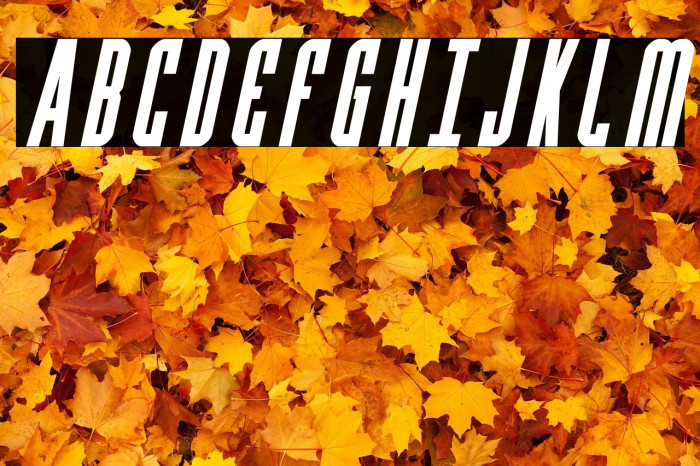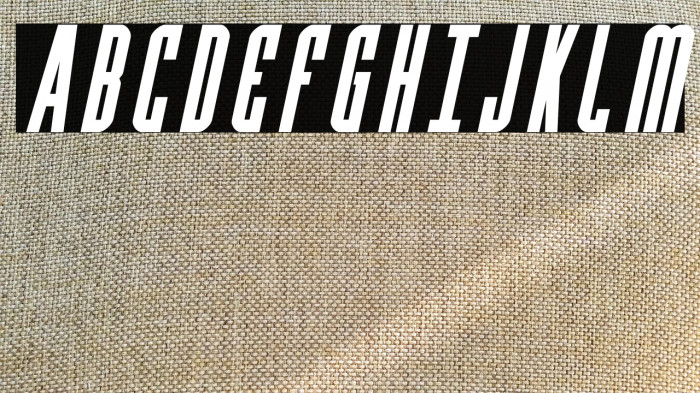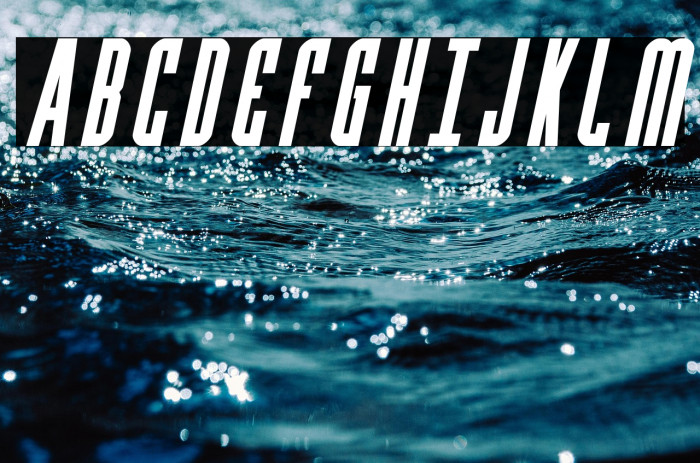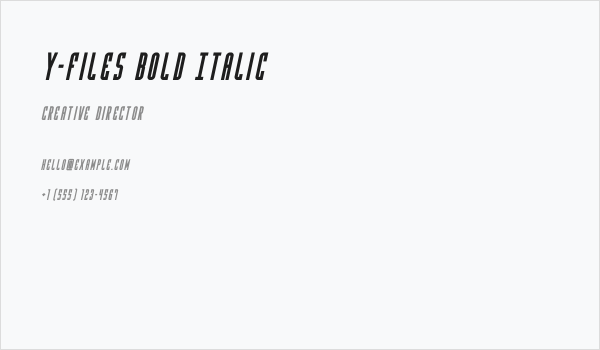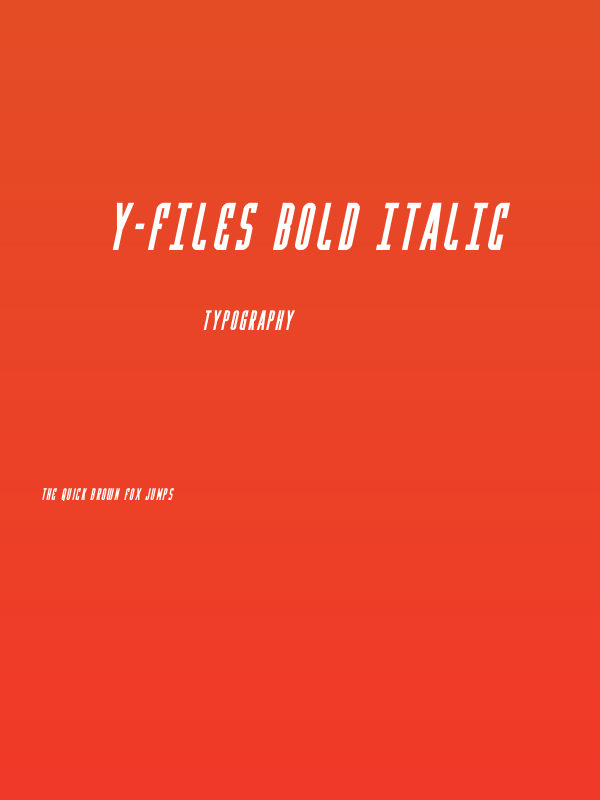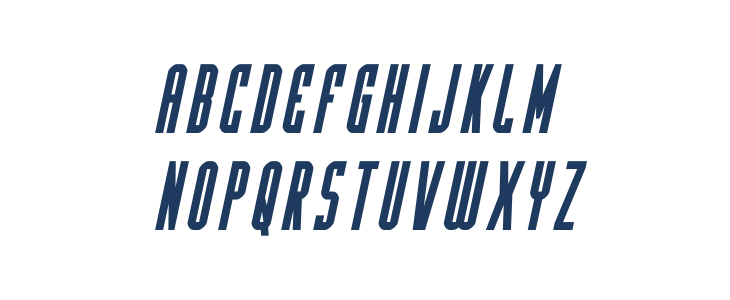
Y-Files Bold Italic Font
Y-Files Bold Italic Description
This font features a bold and italicized style with a strong, dynamic presence. The characters are tall and slightly condensed, giving them a sleek and modern appearance. The italic slant adds a sense of motion and energy, making it ideal for attention-grabbing headlines. The uppercase and lowercase letters maintain consistent proportions, while the numerals are clear and legible. Special characters are included, enhancing its versatility. The overall design is clean and impactful, suitable for various creative applications.
| Proposed Projects | Ideal for sports branding, dynamic posters, modern advertisements, and eye-catching headlines. |